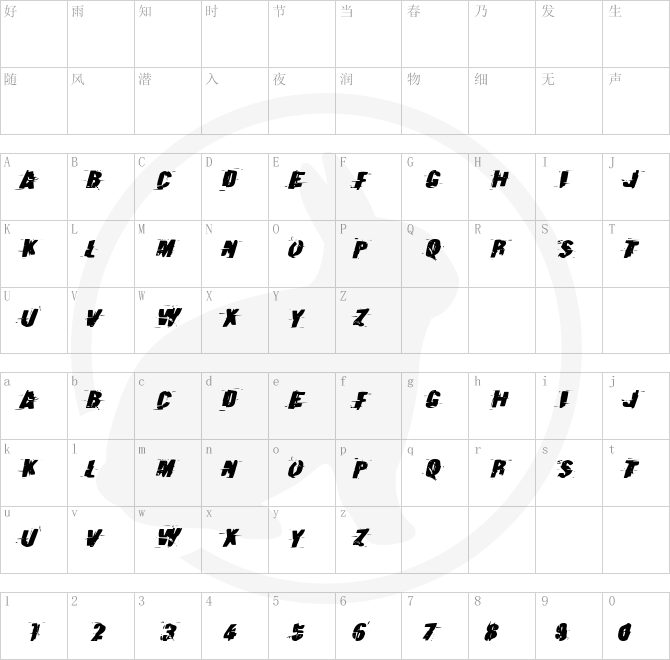
- Font Name:Earthshake Expanded Italic
Earthshake-Expanded-Italic.ttf is a very beautiful artistic font, Earthshake-Expanded-Italic.ttf is widely used in the design and printing of various books and pictures,Earthshake-Expanded-Italic.ttf has a strong visual impact,Earthshake-Expanded-Italic.ttf is a commonly used font in newspapers, magazines and books, and is used in posters, e-commerce Poster design, store design, logo design, font design and other fields.Earthshake-Expanded-Italic.